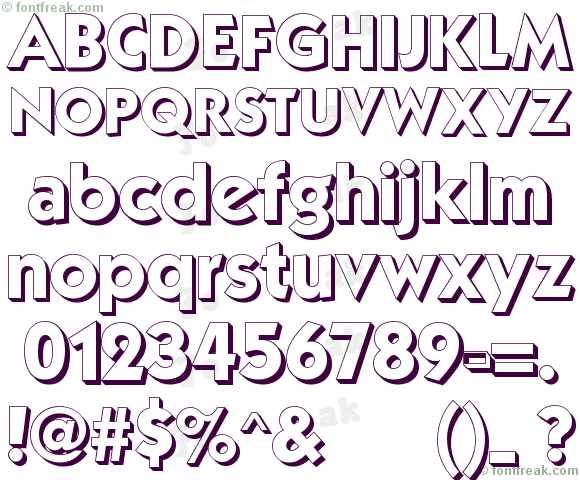
Mouser 3D
Mouser 3D by Sharkshock is a captivating display font that embodies a playful and modern aesthetic. As a decorative typeface, it features bold, rounded letterforms with a distinctive three-dimensional appearance, giving it a lively and engaging quality. The stroke weight is consistent, allowing for excellent legibility while maintaining visual interest. The contrast between the solid inner shapes and the outlined edges enhances its dimensional effect, making it stand out in various designs. The generous spacing between letters adds to its readability, making it suitable for both titles and body text.
This font is ideal for a variety of creative applications. It shines in vibrant event invitations, where its playful nature can set the tone for celebrations. Movie posters benefit from its eye-catching style, drawing attention to the title and creating excitement about the film. Restaurant menus can utilize Mouser 3D to create a fun, inviting atmosphere, especially for family-oriented or casual dining establishments. Additionally, it works wonderfully for merchandise branding, where a memorable and approachable font can help establish a strong identity.
Targeting graphic designers, small business owners, and content creators, Mouser 3D is a versatile choice that caters to various audiences seeking to add a touch of whimsy to their projects. With its freeware license, it offers an accessible option for creatives looking to elevate their designs without breaking the bank.
In conclusion, the Mouser 3D font stands out due to its unique combination of playful design and practicality. Its three-dimensional quality and versatility make it a valuable asset for any designer's toolkit, and you can easily find the Mouser 3D font free download to incorporate this delightful typeface into your next project.